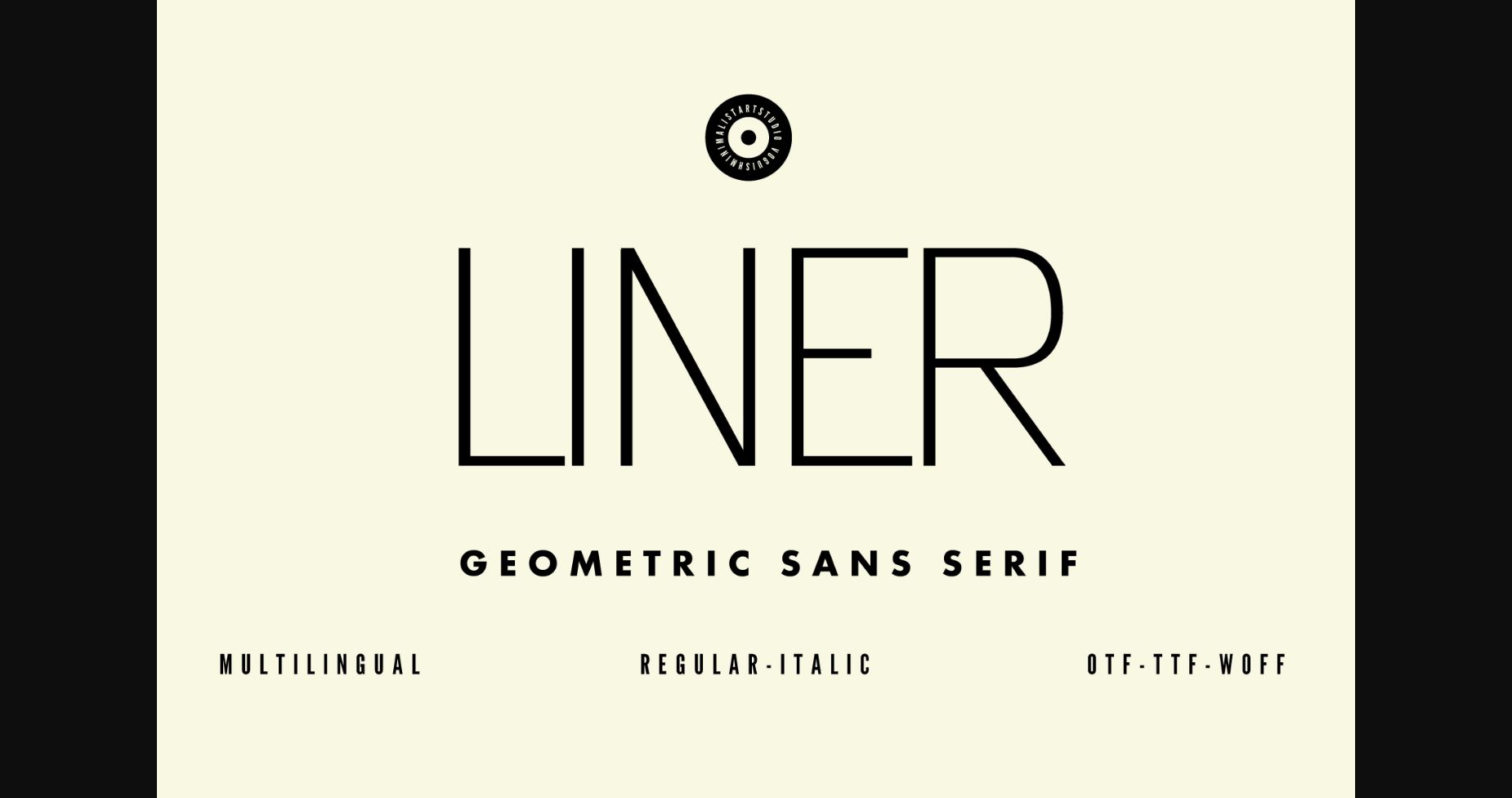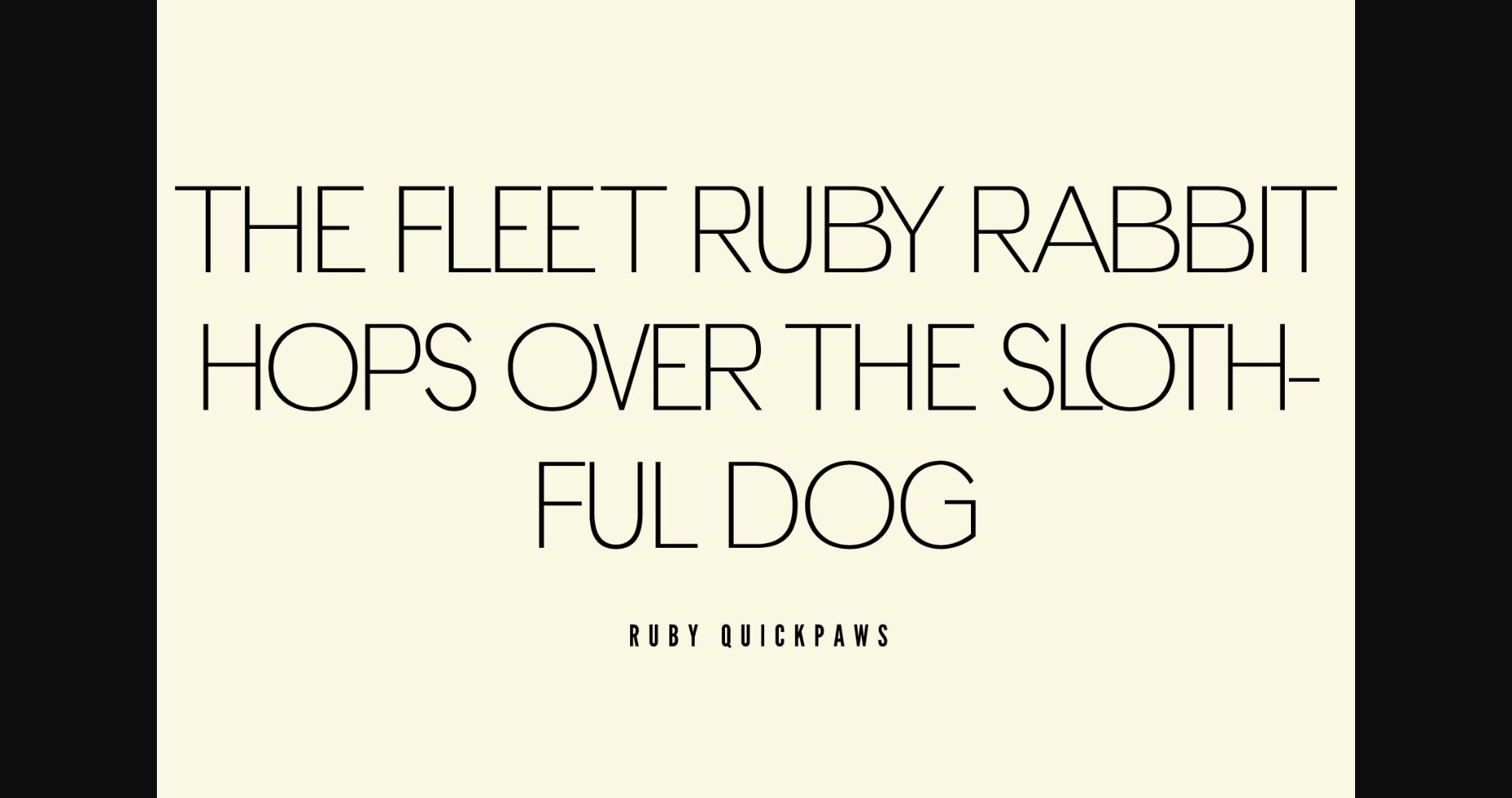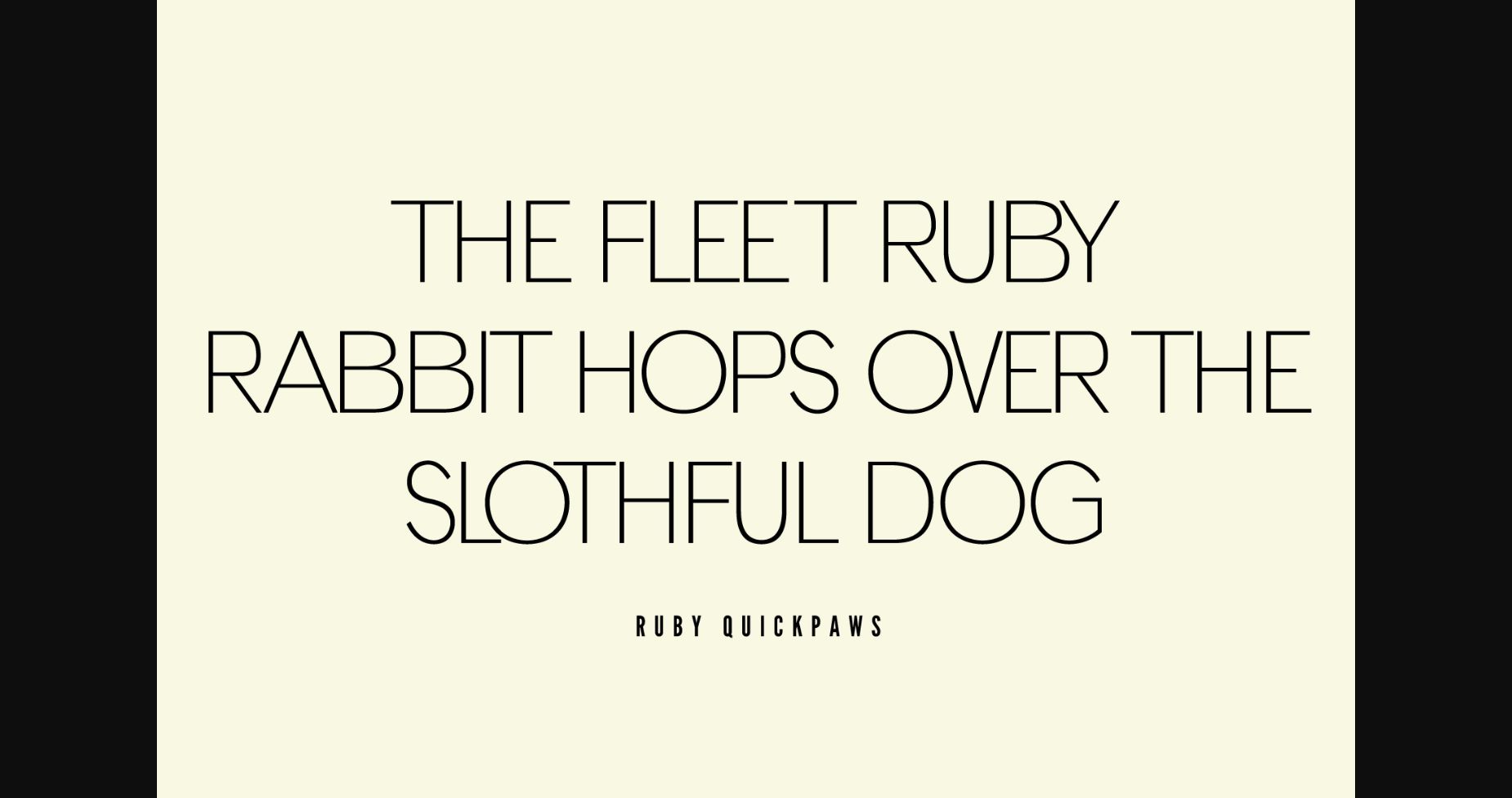
About Liner Font
Introducing LINER: Redefining Minimalist Chic
LINER is a geometric sans serif grotesque typeface that embodies minimalist sophistication. With clean lines and modern aesthetics, it exudes elegance in every curve. Its versatility shines through various design projects, from logos to headlines, with effortless readability. Embrace the freedom to express your creativity without compromising style. Elevate your work with LINER and redefine communication with effortless chic.